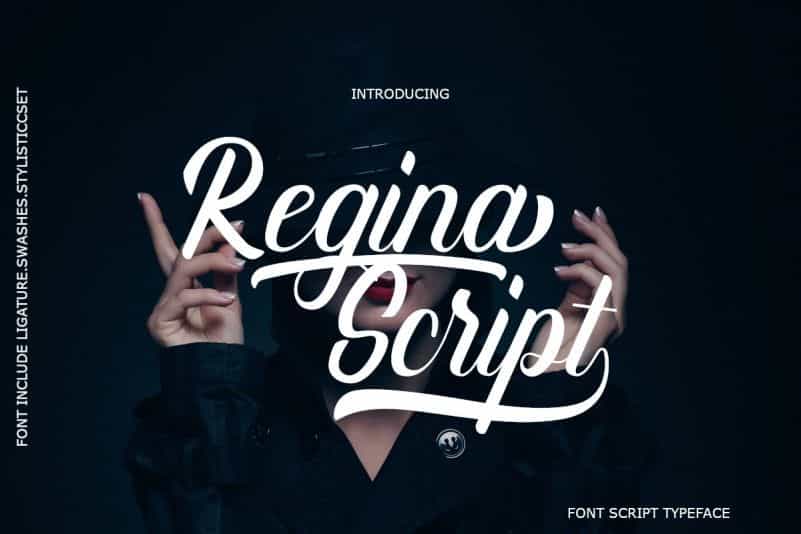
The new font called Regina– A Modern Calligraphy Font is here. It is characterized by a stylish and feminine look which will make any design highly attractive. This font is the best suitable for branding, wedding invites, magazines, mugs, business cards, cards ,quotes ,posters and many other more.